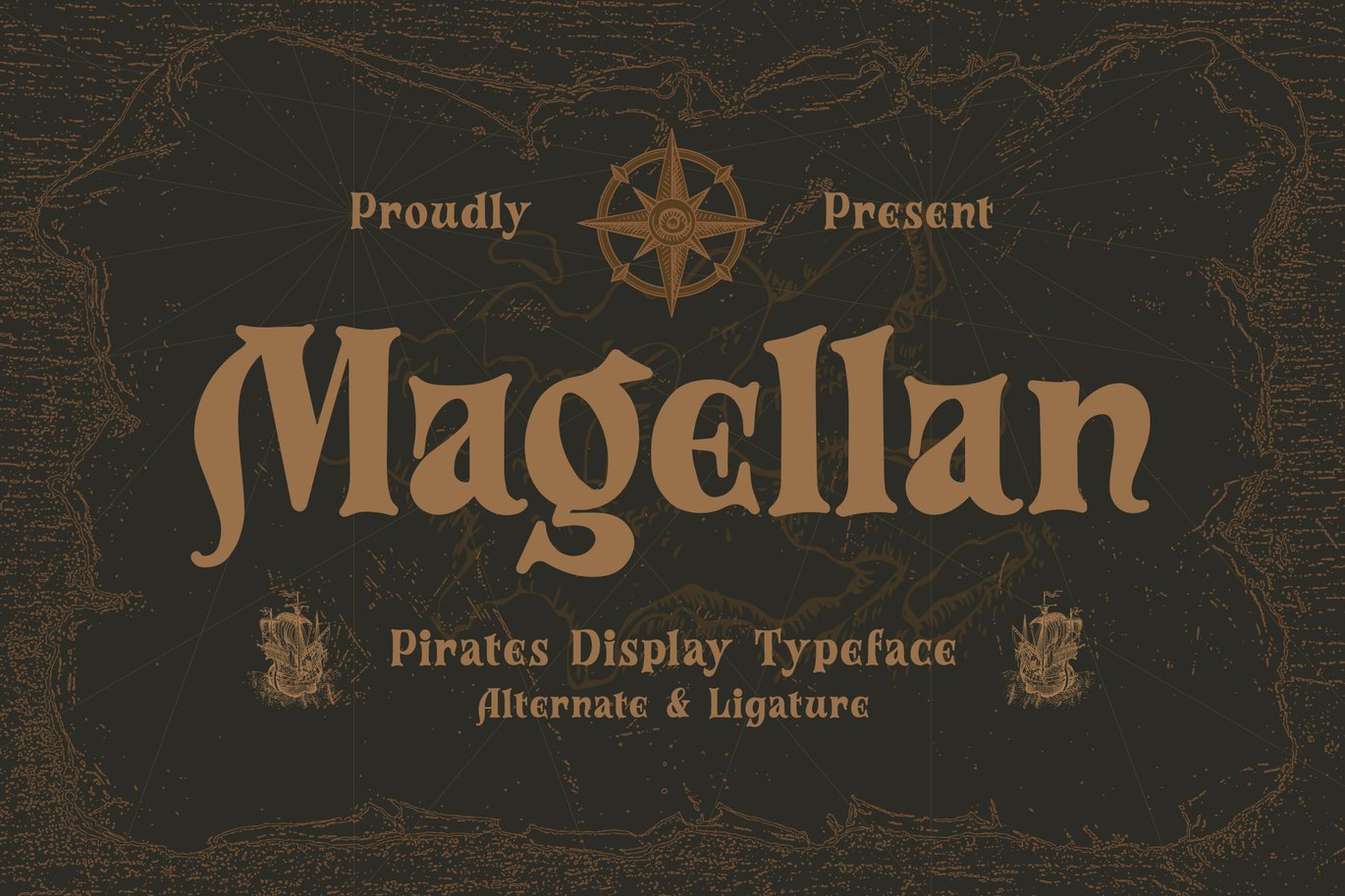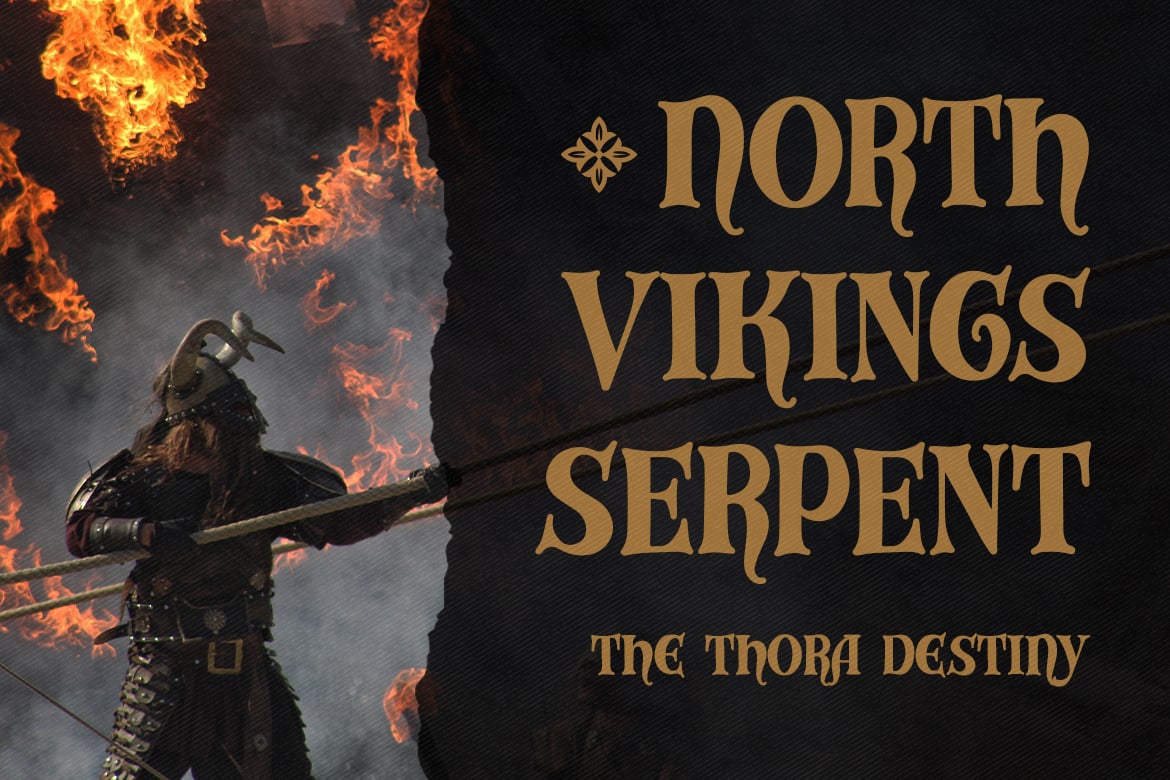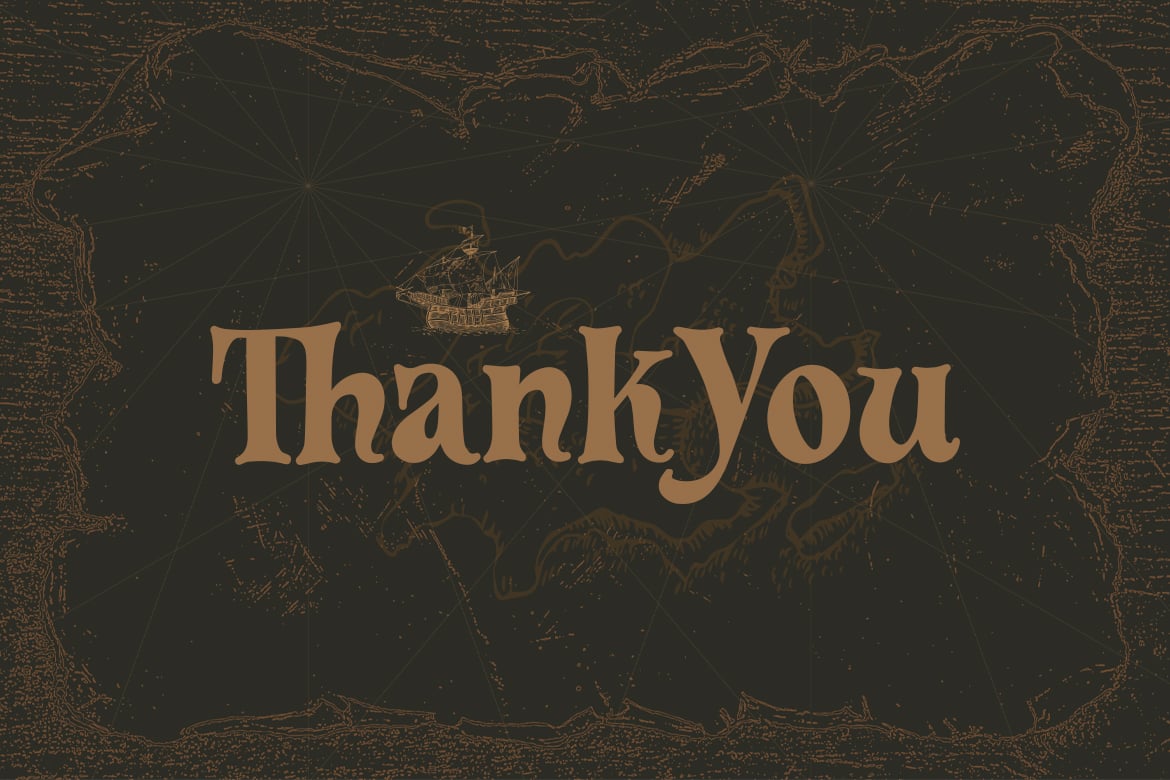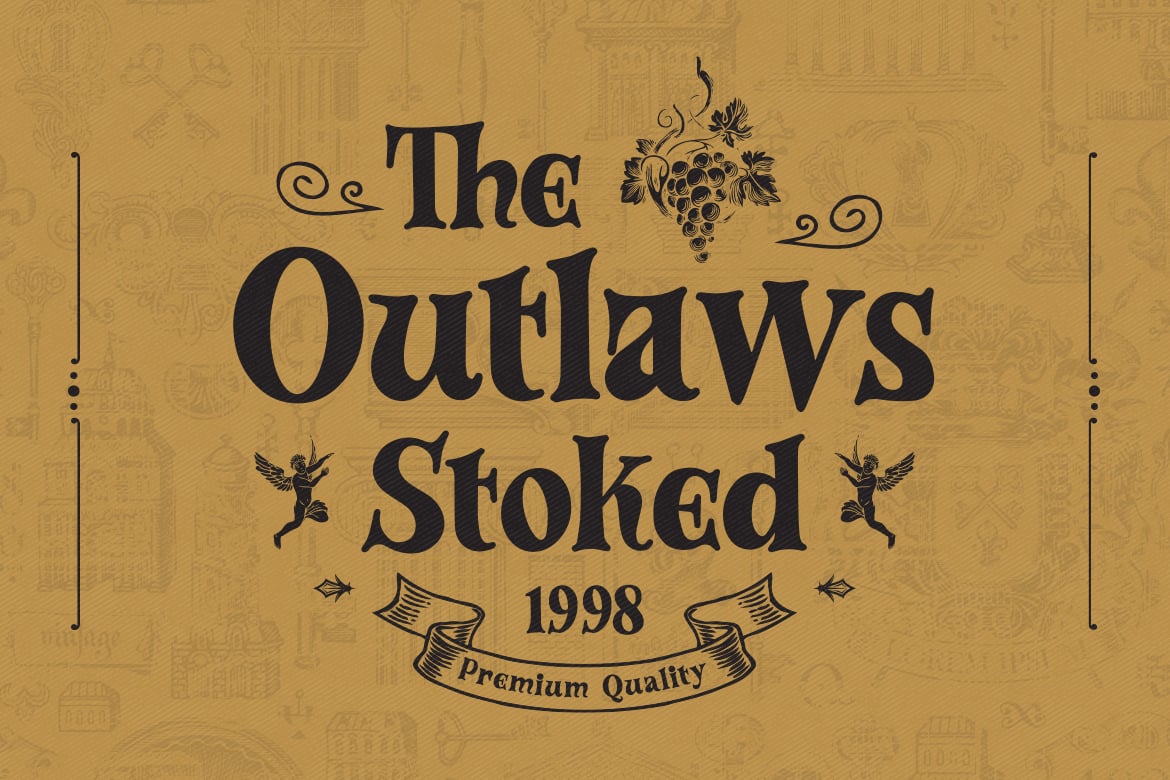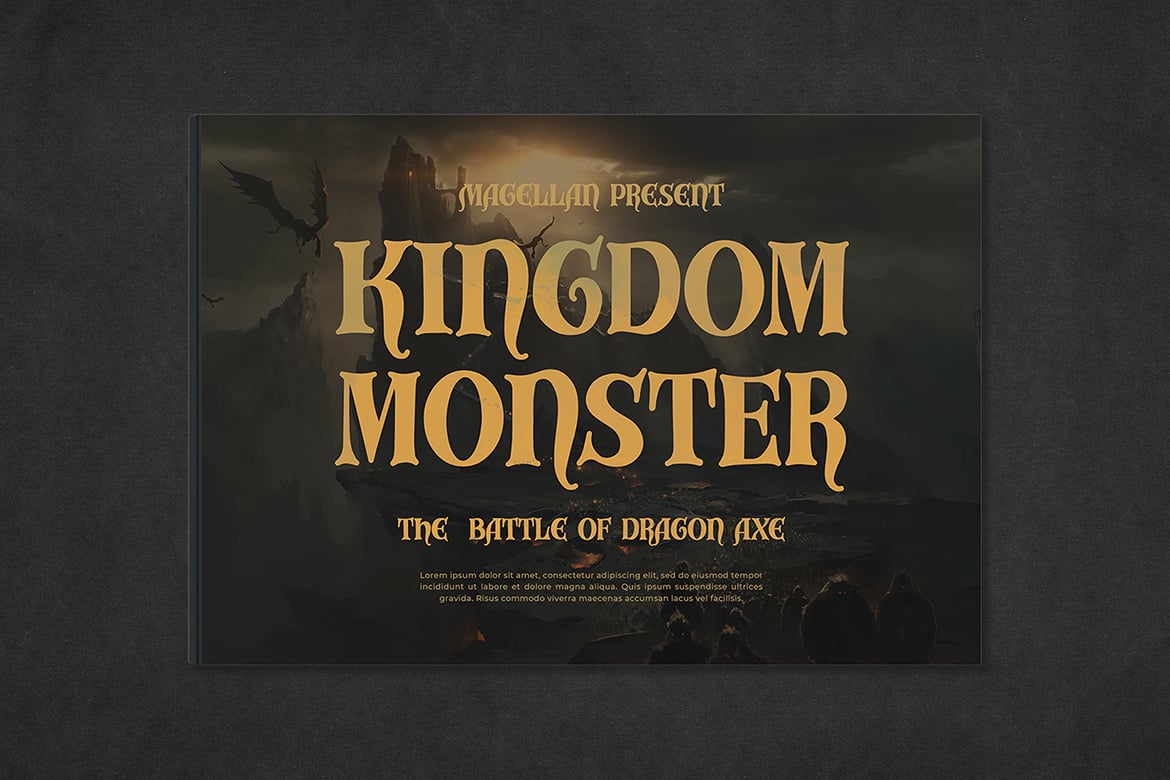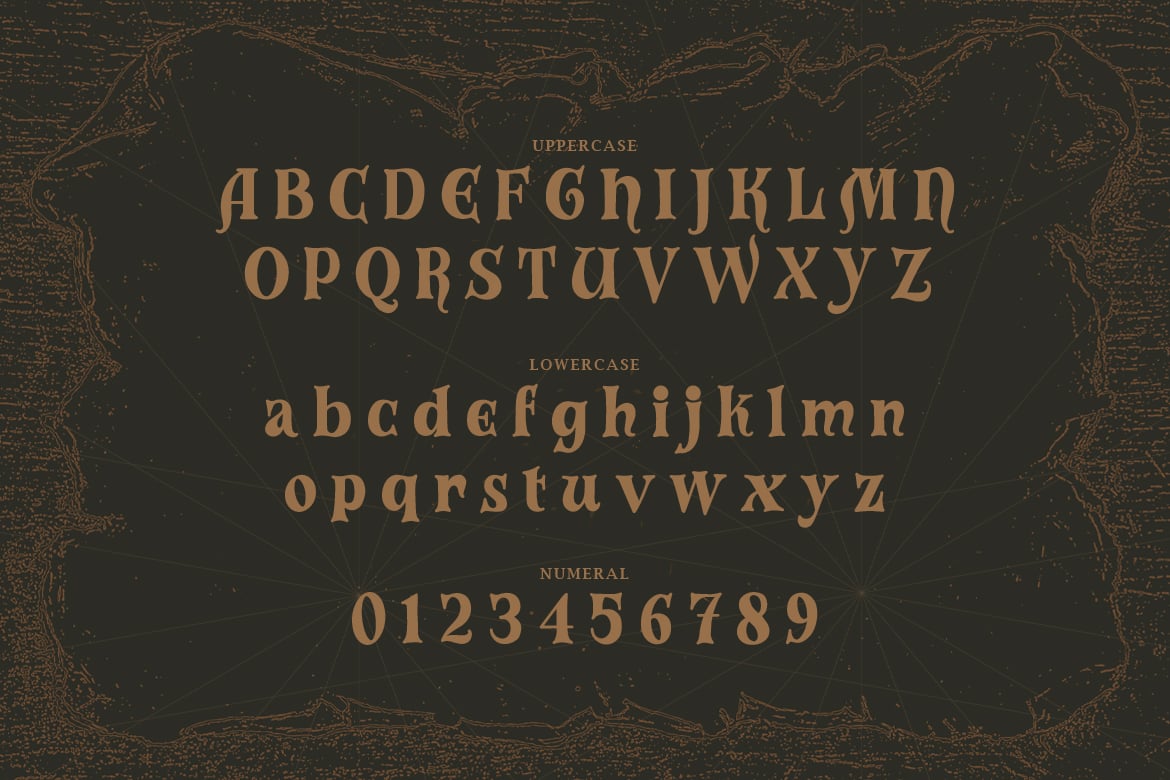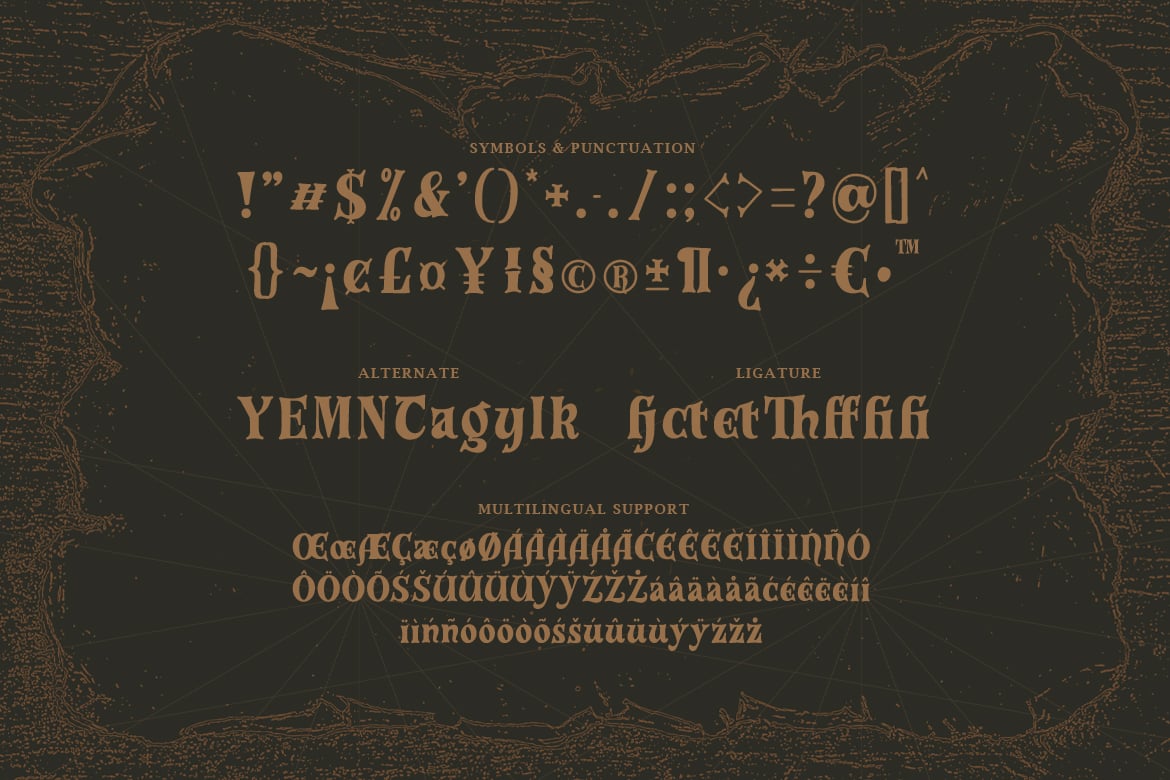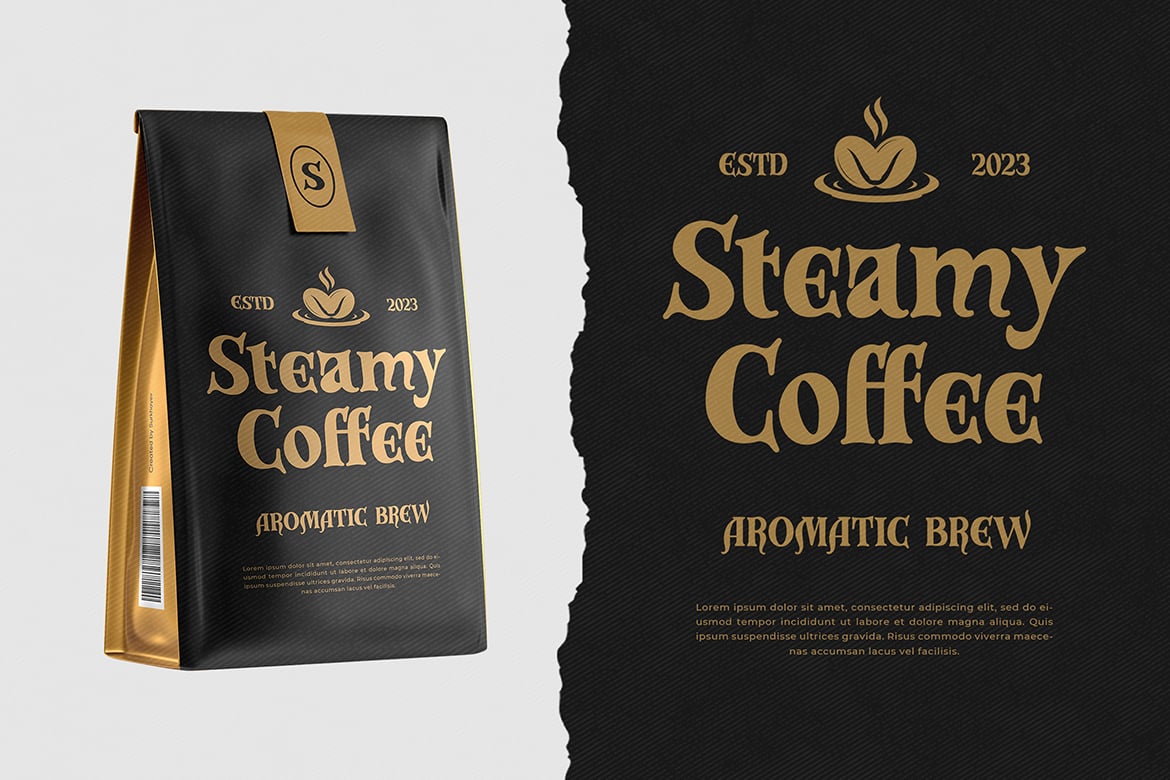
Magellan – Pirates Display Typeface
Embark on a swashbuckling adventure with “Magellan” – a pirates display typeface that brings the spirit of the high seas to your designs.
With its rugged and weathered letterforms, “Magellan” captures the essence of pirate lore and treasure hunting. Each letter carries a sense of mystery and excitement, making it perfect for creating captivating headlines, signage, event posters, and more.
Set sail with “Magellan” and immerse yourself in the world of pirates, as it adds an air of authenticity and adventure to your projects. Whether you’re designing for themed parties, gaming, or branding, this typeface will make your designs stand out from the crowd.
Unleash your inner pirate and let the tales of the sea come to life with “Magellan” today!